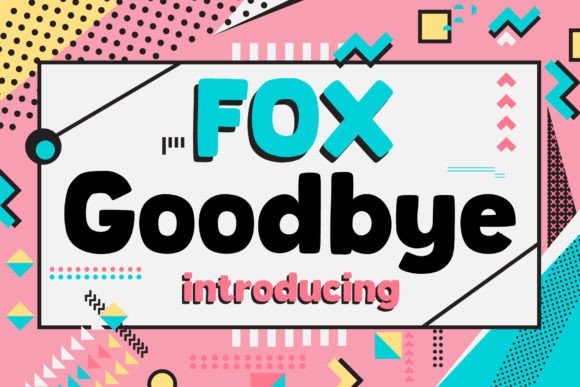
Fox Goodbye: A Playful Display Font for Editorial Charm
As someone who designs newsletters, ebooks, and digital magazines—where tone, clarity, and visual rhythm shape how readers connect with content—I’m always looking for display fonts that do more than just look good. They need to carry voice, support structure, and invite attention without sacrificing intention. Fox Goodbye stands out precisely because it balances exuberance with editorial utility. It’s not a script font or a handwritten typeface—it’s a bold, lively display font built for moments where personality matters most: covers, headers, chapter openers, and quote graphics.
Visually, Fox Goodbye features generous letterforms, rhythmic curves, and a slightly bouncy baseline that suggests motion and warmth. Its uppercase letters have confident presence, while lowercase characters retain playfulness without slipping into informality. There’s no forced quirkiness—just thoughtful design choices that make it feel both original and trustworthy. That balance is rare in the display category, where many fonts lean too hard into novelty at the expense of cohesion or legibility at scale.
In editorial practice, Fox Goodbye shines where hierarchy and mood intersect. Use it for magazine cover titles to signal approachability and energy—think lifestyle publications, creative workbooks, or seasonal newsletters. It works beautifully on ebook covers, especially for nonfiction guides aimed at makers, coaches, or educators: a wellness planner, a small-business branding workbook, or a printable wedding timeline. The font’s personality reinforces the human-centered promise of those resources without undermining their usefulness.
For blog layouts, try Fox Goodbye for H1 headings paired with a warm serif font like Merriweather or a clean sans serif like Inter for body copy. This pairing creates contrast that guides the eye while preserving readability across devices. On mobile, its strong x-height and open counters ensure legibility even at smaller sizes—though it’s best reserved for headlines and accents rather than long-form reading. In PDF exports, Fox Goodbye renders crisply, making it reliable for downloadable guides, lead magnets, and printable worksheets.
One of the quiet strengths of Fox Goodbye is how it supports brand consistency without demanding uniformity. A creator newsletter might use it only for section dividers and featured quote graphics—reinforcing identity each time a reader pauses to absorb a highlighted insight. A digital magazine could apply it selectively: title pages, pull quotes, and issue banners—keeping the rest of the typography grounded in a neutral, highly readable typeface. That restraint lets Fox Goodbye function as punctuation rather than wallpaper.
It also adapts well across formats. In a recipe ebook, Fox Goodbye adds charm to dish names without competing with ingredient lists set in a functional sans serif. In a coaching workbook, it gives exercises and reflection prompts visual distinction—making them feel intentional and inviting. For wedding or event planning printables, its cheerfulness complements soft color palettes and minimalist layouts without overwhelming them. Even in social media graphics—like Instagram carousels summarizing key takeaways from a guide—Fox Goodbye draws attention without shouting.
Readability considerations matter, especially when balancing screen and print. Fox Goodbye isn’t designed for paragraphs, captions, or navigation menus—and that’s by design. Its role is emphatic, not exhaustive. When used thoughtfully, it enhances scannability: readers instantly recognize headings, quotes, or callouts as meaningful anchors in the flow. That kind of visual signaling supports comprehension, particularly in longer digital pieces or multi-page PDFs where cognitive load can build quickly.
Font pairing is where Fox Goodbye reveals its editorial maturity. Pair it with a classic serif (e.g., EB Garamond or Lora) for body text in print-focused projects like magazines or premium ebooks. For digital-first newsletters or blogs, pair it with a modern, low-contrast sans serif (e.g., Poppins or Manrope) for subheads and captions—creating harmony between energy and clarity. Avoid pairing it with other display fonts or overly decorative scripts; Fox Goodbye thrives when contrasted with calm, functional companions.
Fox Goodbye includes standard OpenType features—ligatures, stylistic alternates, and multilingual support covering Latin-based languages. These aren’t flashy extras; they’re practical tools. Ligatures smooth common letter combinations in headlines, while alternates let you fine-tune tone: swap a bouncier “a” for a more grounded version depending on context. That level of control matters when building a cohesive publication identity across multiple touchpoints.